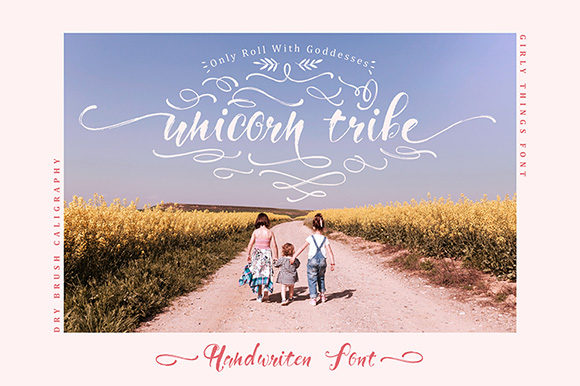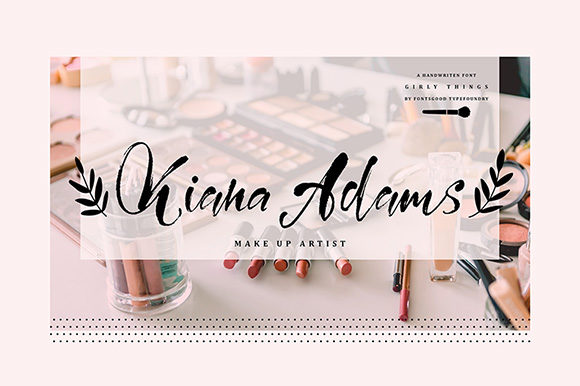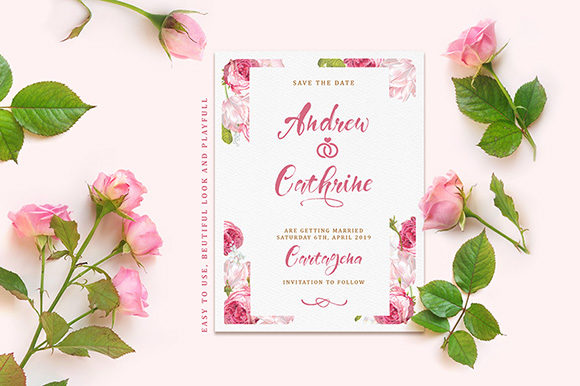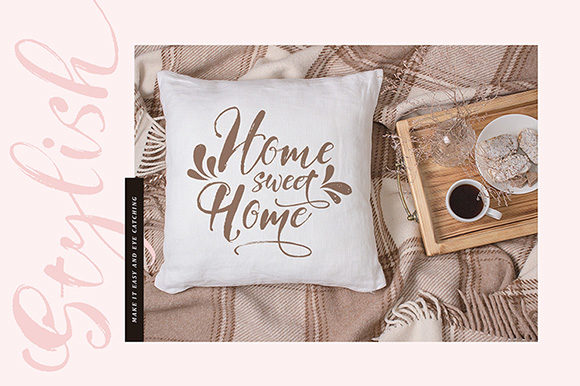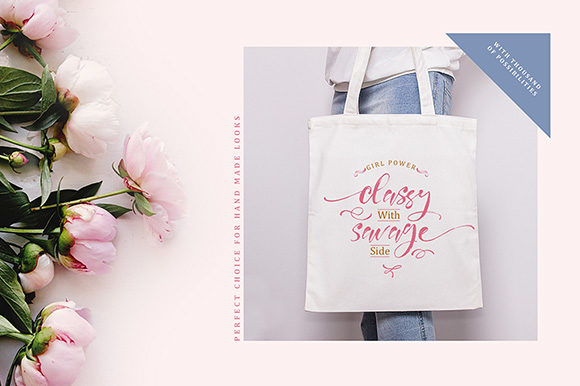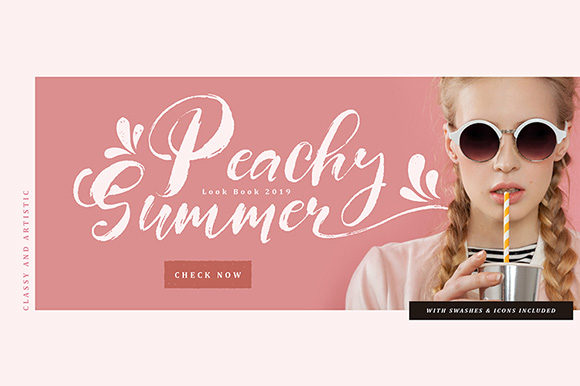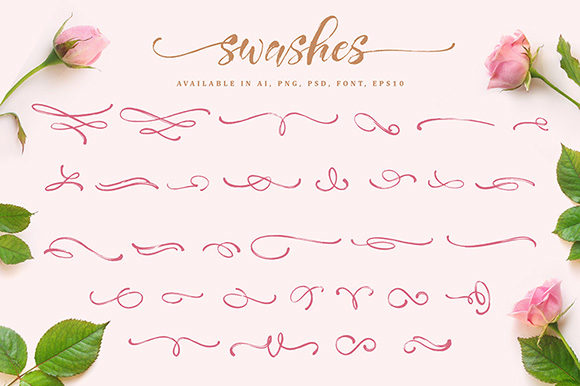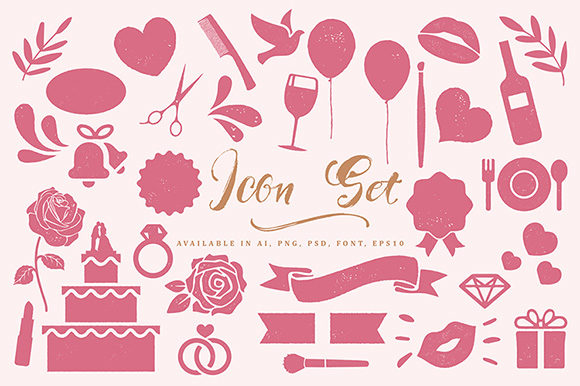
Girly Things Family Font
About Girly Things Family Font
The Girly Things is a feminine font family. It includes 7 styles and a pack of icons and curly swashes. It’s the perfect font family to add to your library for creating endlessly unique designs.